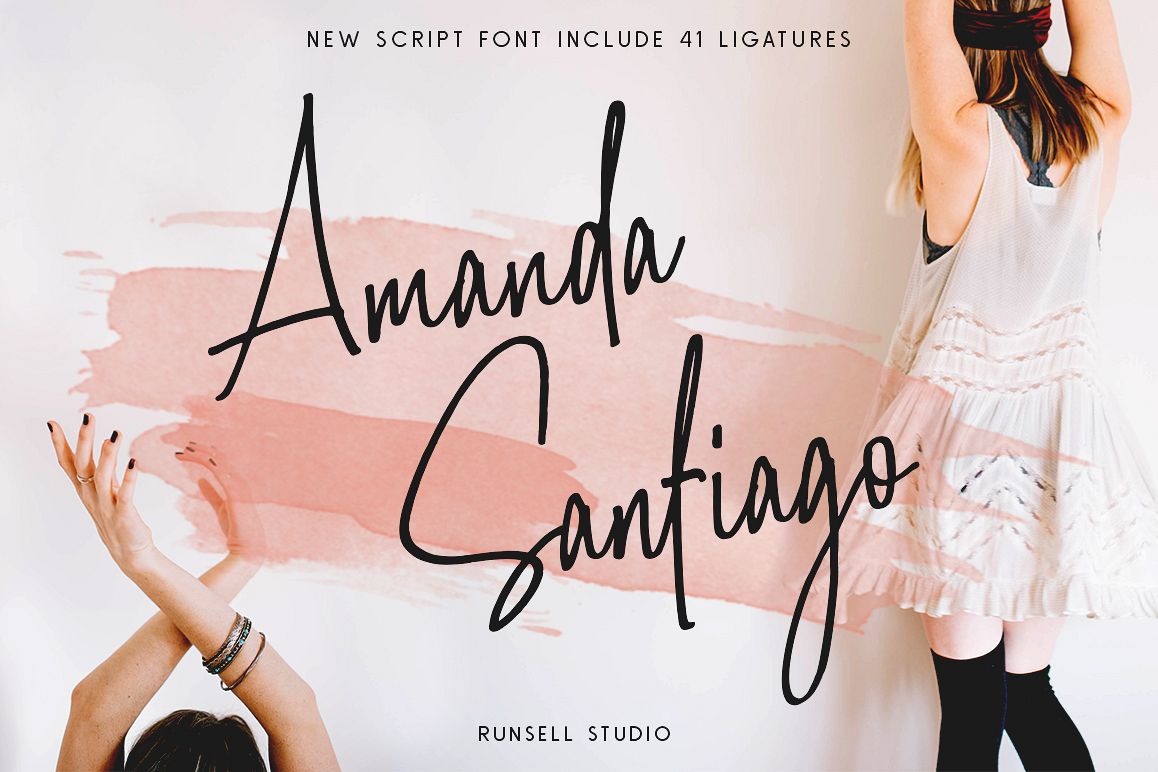
Amanda Santiago
Runsell Studio introducing new script font Amanda Santiago ​​​​​​​that can make your design look authentic and handcrafted. Amanda Santiago comes with 4 style and 1 modern sans. The both of them perfect for the signature, logotype, wedding invitation, quotes art, website header, packaging, branding, business card, fashion magazine and more.
Amanda Santiago Font features uppercase, lowercase, numeral, punctuation & symbol, ligatures, multilingual support, PUA encoded.